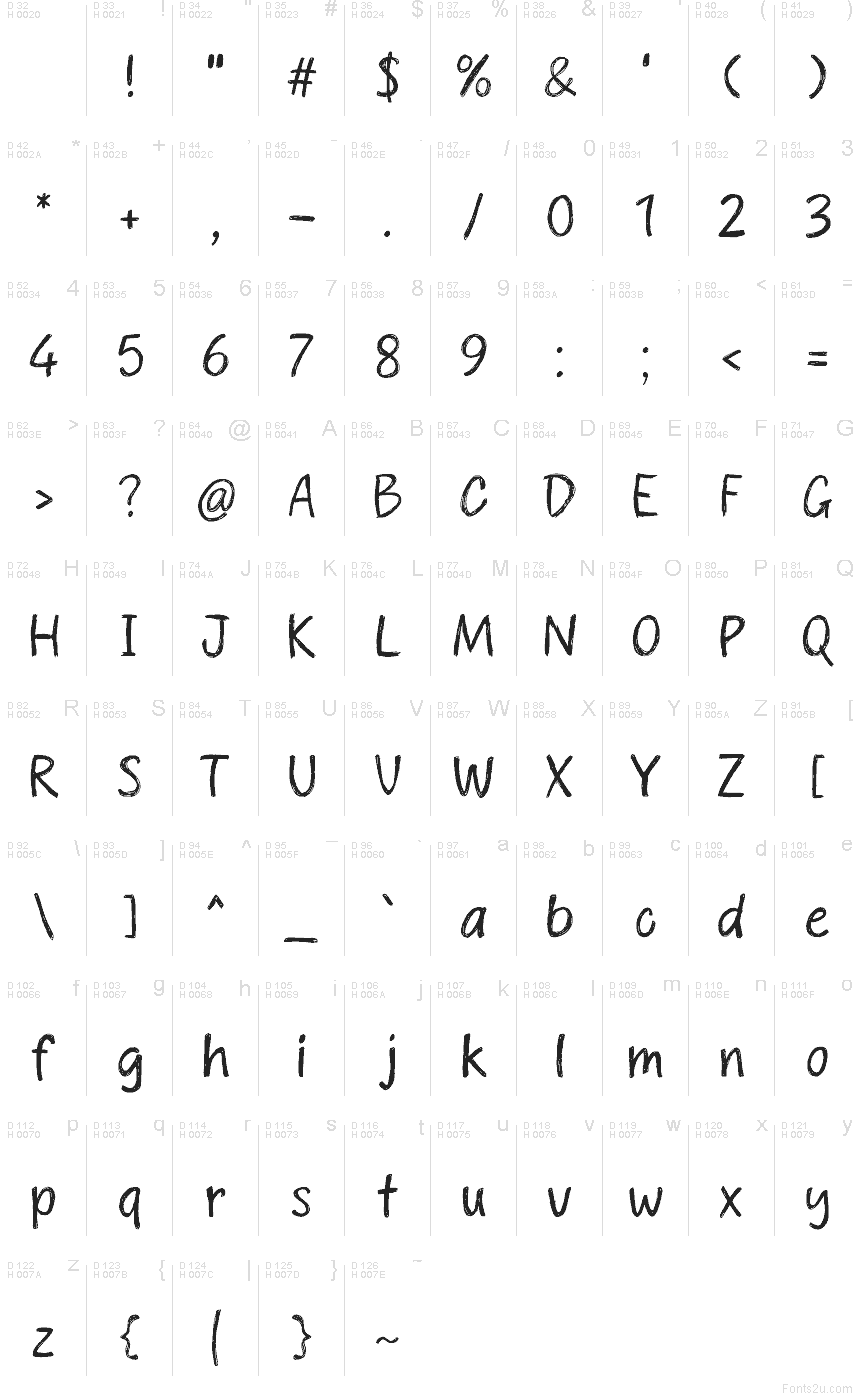
Sketchy Notes, from Origin Type, is a free brush font with a loose notebook scrawl and rough, doubled strokes that feel quickly jotted by hand. The letters lean on repetition rather than polish: wobbling outlines, dry marker texture, and easy curves give it a candid, scribbled rhythm.
It fits posters, zines, cafe menus, scrapbook packaging, and social media title cards where a free font should look personal rather than composed. Use it for short headlines, cover lines, or drop-in labels when you want the writing to feel like an actual note, because the uneven strokes keep the mood casual and immediate.